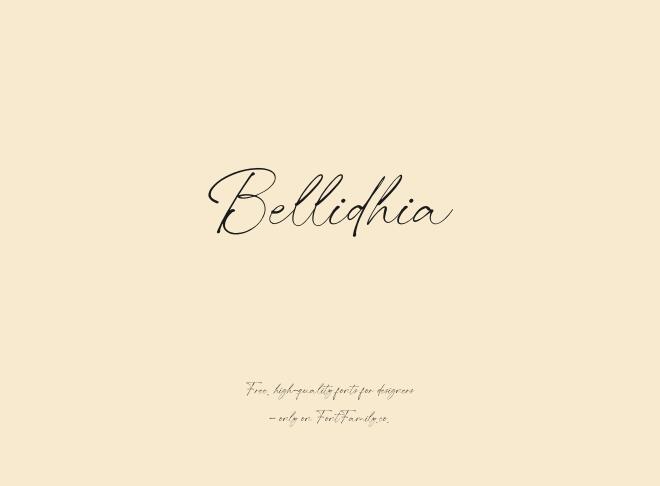
Bellidhia Font
Bellidhia Font is a modern and elegant handwritten script font that offers a balanced and eye-catching design. Its unique style, inspired by classic calligraphy, makes it a perfect choice for designers aiming to add a touch of sophistication and class to their designs. Bellidhia Font's versatility allows it to be used in a wide range of design projects, from logos and branding to invitations, posters, and other print materials. Its distinctive flow and smooth lines make it comparable to popular fonts like 'Amaranth' and 'Lobster', but its unique character sets it apart. Bellidhia Font is a great choice for designers seeking a blend of modernity and traditional elegance in their projects.